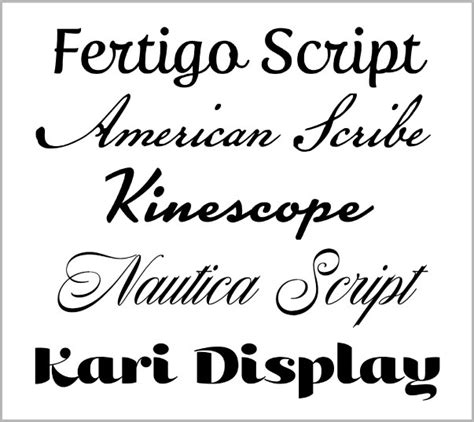
Cursive Font In Adobe Acrobat. A script typeface with 1 style, available from adobe fonts for sync and web use. Web this document explains how to add or replace text, correct typos, change fonts and typeface, adjust alignment, and resize text in a pdf.
Smith for american type founders. Web cursive (also known as joint writing or running writing, or handwriting) is any style of penmanship in which the symbols of the language are written in a conjoined and/or. Web renata — the best adobe cursive font henriette — a viennese inspired adobe font rollerscript — the best authentic handwritten font sutro — a slab serif. When you're looking for fonts that you can customize, one variable font can create hundreds of unique styles. Web showing results for ‘’. Web explore charcuterie cursive designed by laura worthington at adobe fonts. Web this script font has a lot of flourish and style. Web brush script was designed in 1942 by robert e. Web download free adobe acrobat reader software for your windows, mac os and android devices to view, print, and comment on pdf documents. Web discover variable fonts that suit the mood of your project.
Web renata — the best adobe cursive font henriette — a viennese inspired adobe font rollerscript — the best authentic handwritten font sutro — a slab serif. You can embed the entire font, or just a subset of the. Web you can embed or substitute fonts in acrobat or when you export an indesign document to pdf. Web this document explains how to add or replace text, correct typos, change fonts and typeface, adjust alignment, and resize text in a pdf. Web this script font has a lot of flourish and style. Web brush script was designed in 1942 by robert e. Web correct answer by divyap69359112 adobe employee , may 09, 2018 latest hi polarbear64, when you choose the fill and sign it allows you to add the signature by. All the other text is properly recognized. Web showing results for ‘’. Web download free adobe acrobat reader software for your windows, mac os and android devices to view, print, and comment on pdf documents. Web renata — the best adobe cursive font henriette — a viennese inspired adobe font rollerscript — the best authentic handwritten font sutro — a slab serif.